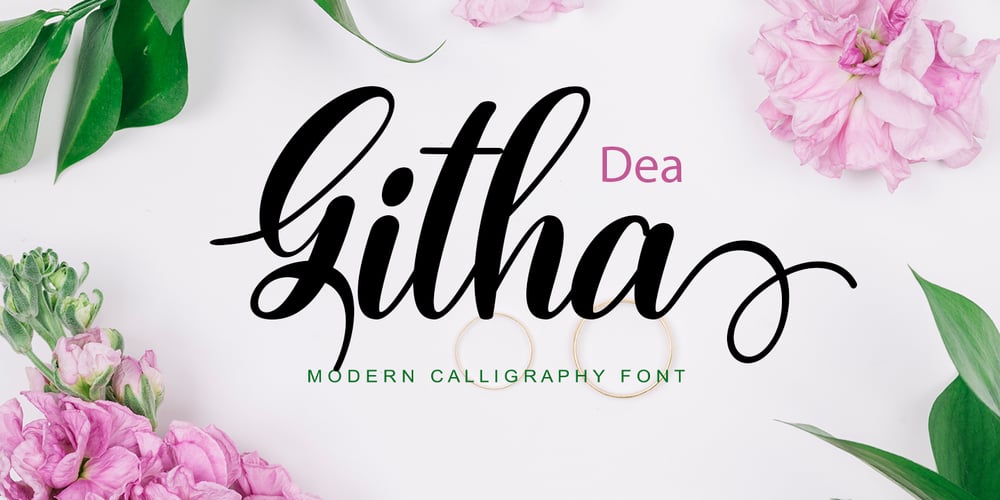
Dea Githa
Dea Githa Font Family was designed by khaidir and published by Gatype. Dea Githa contains 1 styles and family package options. Dea Githa is sweet calligraphy font, including Regular. This font is casual and pretty with swashes. Can used for various purposes. such as logo, product packaging, wedding invitations, branding, headlines, signage, labels, signature, book covers, posters, quotes and more.Thanks & Happy Designing!